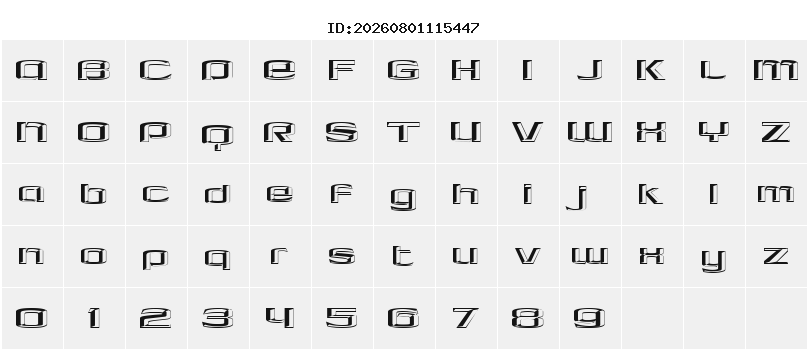
• Font Name: LHF Cool Blue Convex
• Font ID: LHF Cool Blue Convex
• Full Font Name: LHF Cool Blue Convex
• Copyright: © 2002 Letterhead Fonts, by Chuck Davis
About LHF Cool Blue Convex.ttf
LHF Cool Blue Convex.ttf is a modern, elegant sans-serif font designed for ultimate readability and visual harmony. Perfect for branding, headlines, web design, and print materials.